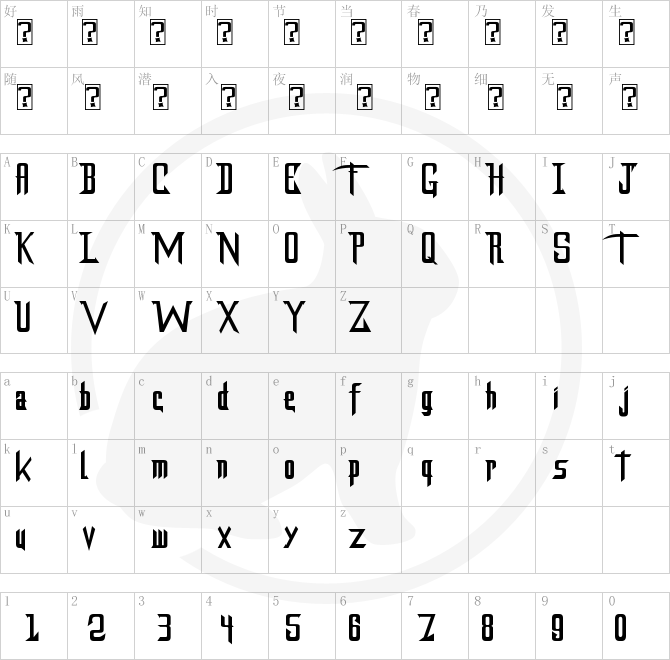
- Font Name:‘DragonForcE’
‘DragonForcE’.ttf is a very beautiful artistic font, ‘DragonForcE’.ttf is widely used in the design and printing of various books and pictures,‘DragonForcE’.ttf has a strong visual impact,‘DragonForcE’.ttf is a commonly used font in newspapers, magazines and books, and is used in posters, e-commerce Poster design, store design, logo design, font design and other fields.‘DragonForcE’.